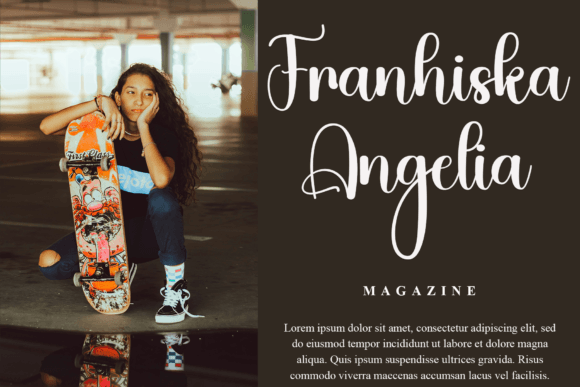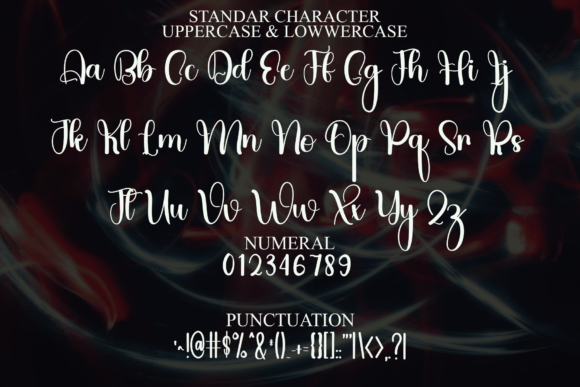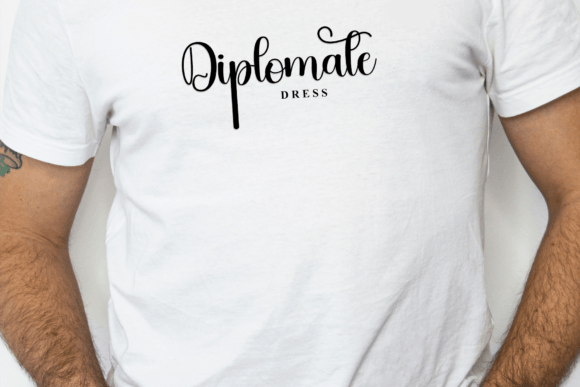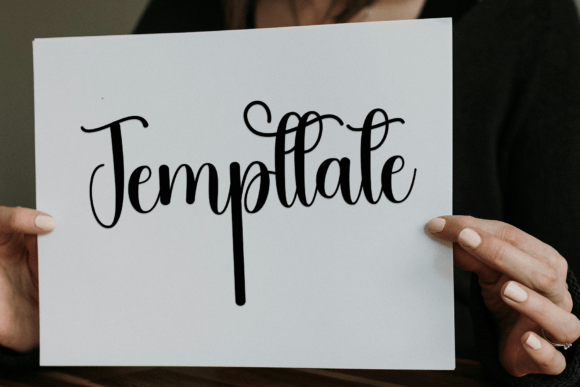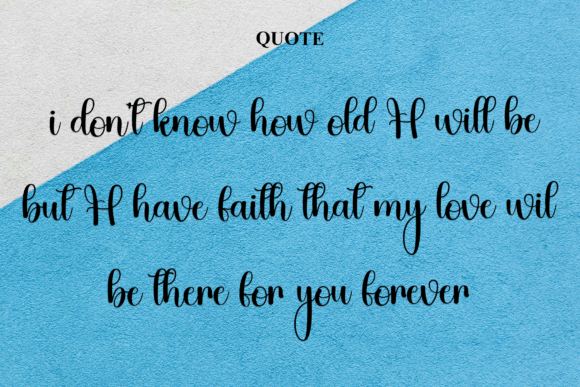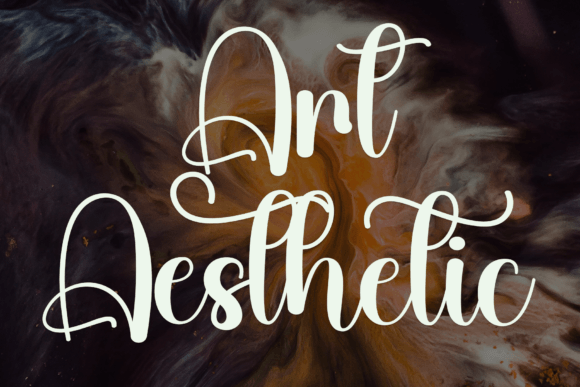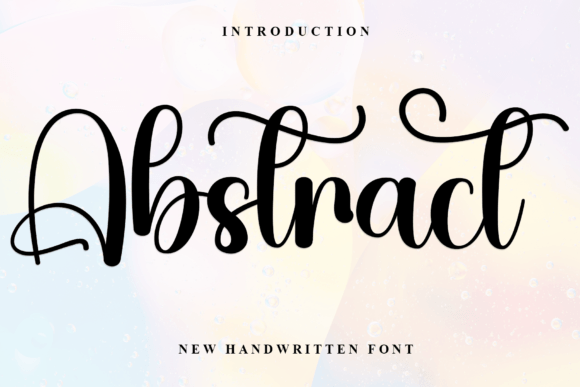
Unlock Your Creativity with the Abstract Font
Do you ever find yourself staring at a blank canvas, eager to bring your creative vision to life? The blank page can be intimidating, but what if you had the perfect tool to help spark your imagination? That’s where the Abstract Font comes in – a magical script font that combines elegance and whimsy to elevate your designs.
Whether you’re a seasoned designer or a DIY enthusiast, the Abstract Font is a valuable addition to your creative toolkit. Its PUA coding allows for easy access to all the amazing glyphs and ligatures, making it perfect for crafting unique titles, quotes, and graphics. With this font, you can turn your ideas into stunning works of art that are sure to captivate your audience.
- Unique Characteristics: Features a unique blend of modern and abstract typography, with intricate details and subtle nuances
Designer Review: Abstract Font
Overall, I think the Abstract Font has some great qualities, but it also has some limitations that hold it back. ✨ One thing that really stands out is its unique and creative design. The font is perfect for adding a touch of whimsy and personality to any project. It’s also highly versatile and can be used in a variety of settings, from digital displays to print materials.
The font’s abstract nature makes it a great choice for designers who want to add some visual interest to their work. ✨ The intricate details and textures add depth and dimension, making it a great choice for packaging design, advertising, and other applications where you want to grab the user’s attention.
- ⚠️ Readability can be a issue, especially at smaller font sizes. The abstract design can make it difficult to read, especially for people with vision impairments.
- ⚠️ The font may not be suitable for body text, as it can be quite distracting. It’s best used for headlines, titles, and other display text.
- ⚠️ The font’s unique design can also make it difficult to pair with other fonts, so you may need to choose a custom pairing to get the look you want.
Overall, I think the Abstract Font is a great choice for designers who want to add some creativity and personality to their work. While it has some limitations, its unique design and versatility make it a great addition to any design toolbox.
Abstract Font is commonly used for:
- Creating unique and eye-catching headlines
- Designing creative and modern logos
- Adding a touch of sophistication to presentations and documents